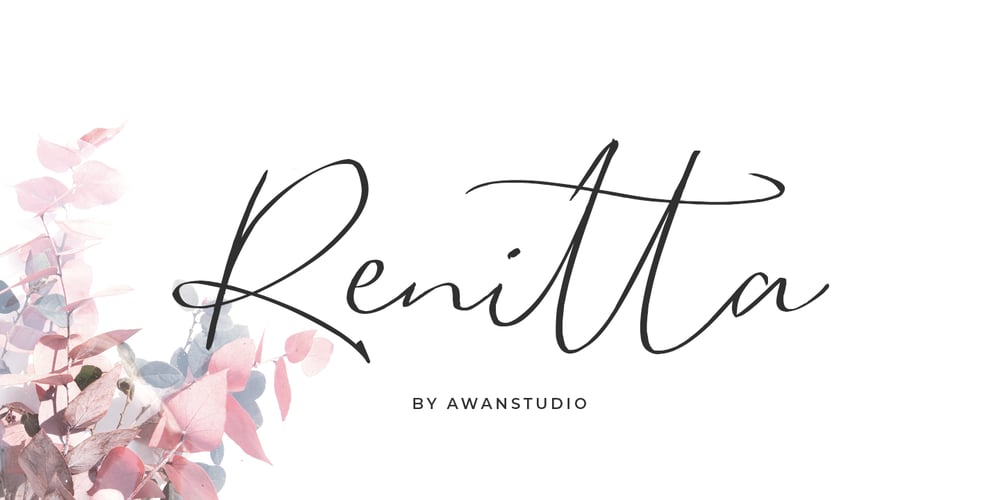
Renitta
Renitta font
Renitta Font Family was designed by Awan Setiawan and published by Awanstudio. Renitta contains 1 styles and family package options. Renitta! It allows you to create stunning and easy hand-lettering designs in an instant. Ideal for logos, quotes, wedding, product label/packaging, fashion, letter, advertising, invitations, posters, merchandise, greeting cards, and more.